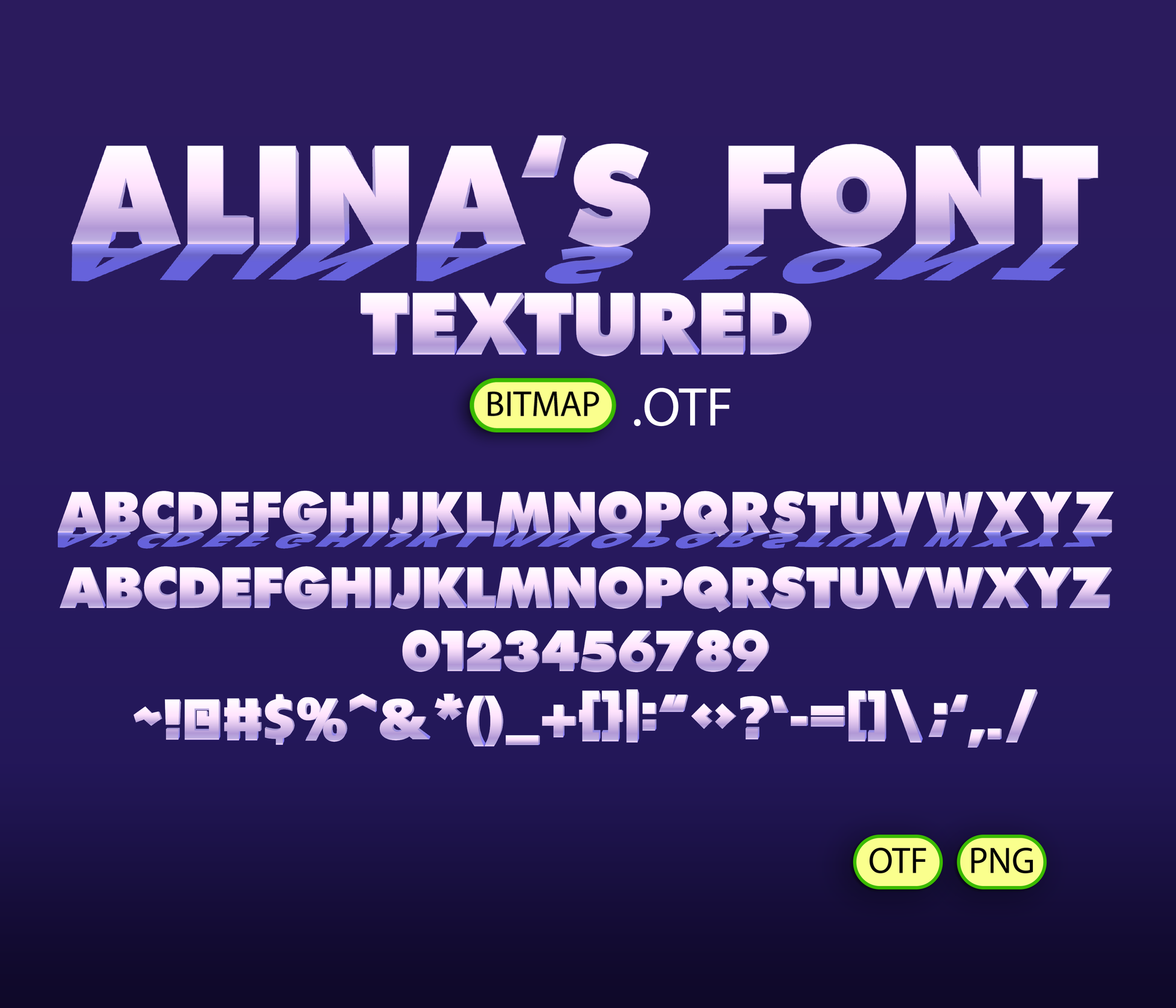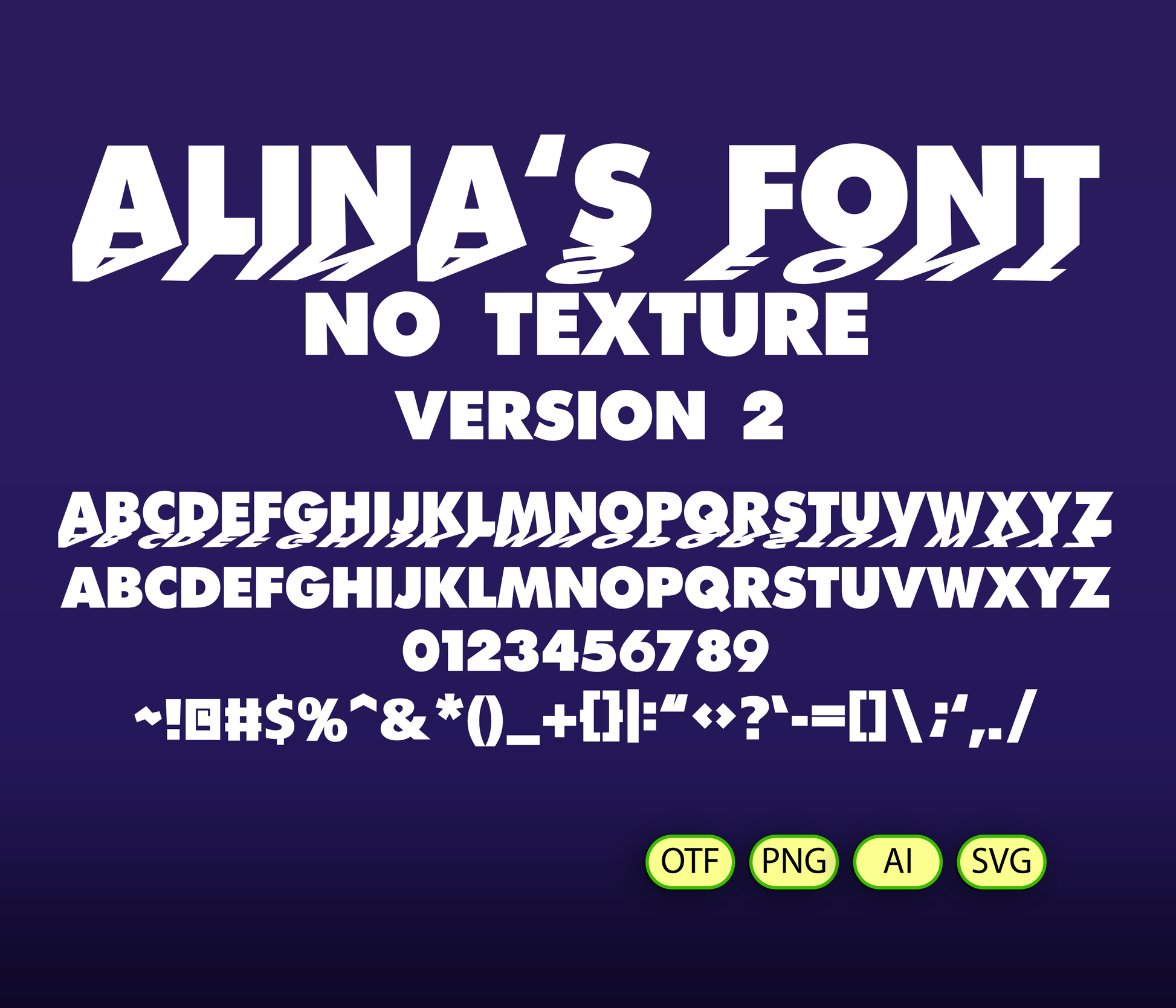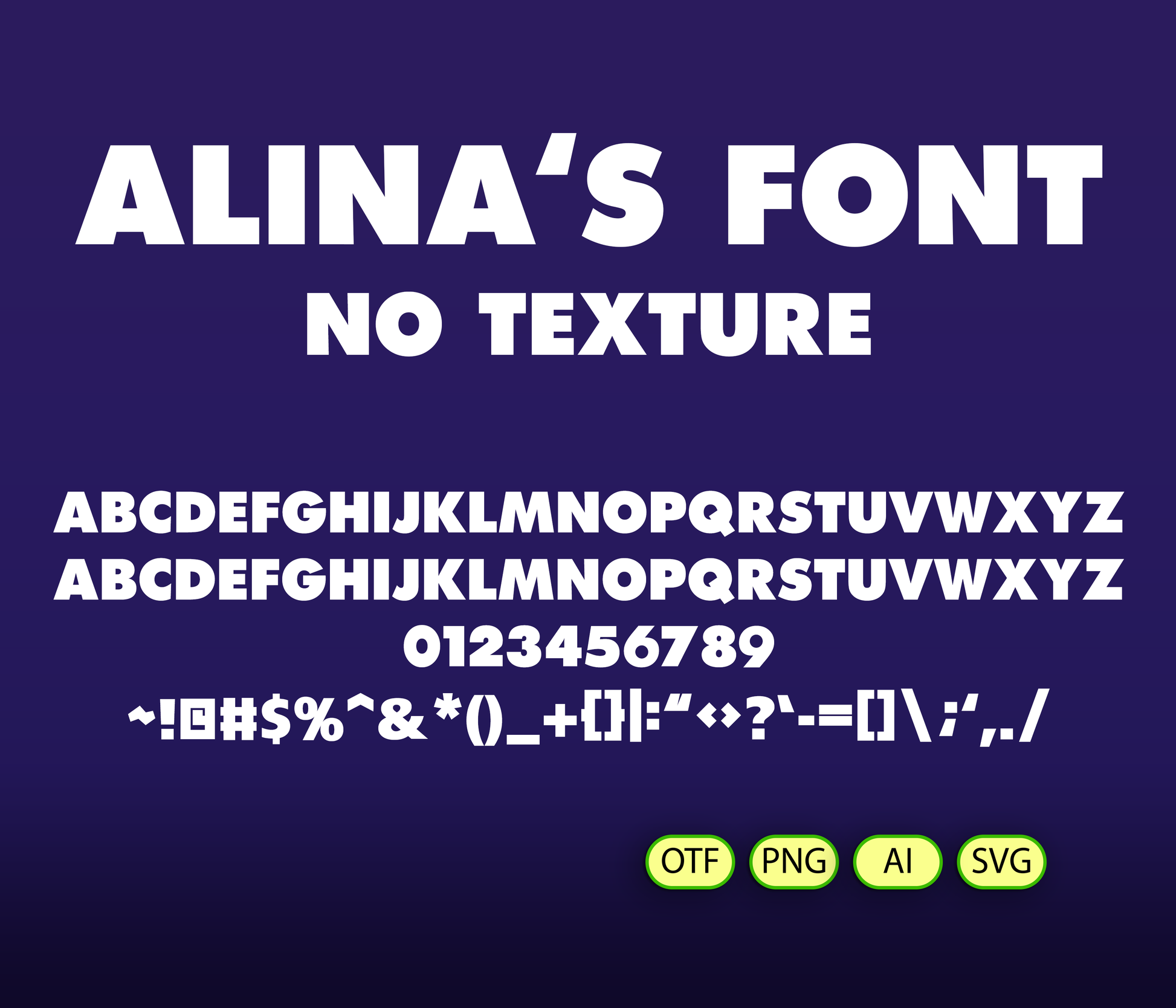
Imagination Font Textured
Imagination Font: Inspired by Speculative Storytelling
Dive into the realm of possibilities with our Imagination Font, a typographic homage to the whimsical and boundless landscapes of speculative storytelling. Designed for storytellers, dreamers, and creators, this font is perfect for projects that explore "What if?" scenarios, challenge reality, and celebrate the hypothetical. Whether crafting film posters, book covers, or digital content, the Imagination Font invites you to write, design, and dream beyond conventional limits.
What font is the IF Imagination Font?
This query unveils a typeface that encapsulates the essence of speculative storytelling, blending elements of fantasy, science fiction, and alternate realities. With its sleek lines and imaginative flair, the font mirrors the intrigue and curiosity that If movies evoke. It's crafted to engage the viewer's sense of wonder, with characters that convey a sense of adventure and mystery, making it perfect for titles, promotional materials, and content that aims to captivate and inspire. The extensive character set ensures versatility, enabling creators to express a wide range of speculative ideas and narratives.
Application and Customization
The If Movie font is remarkably versatile, making it suitable for a variety of creative and commercial projects:
- Film Posters and Titles: Ideal for capturing the speculative essence of movies that delve into what if scenarios.
- Book Covers: Perfect for novels or anthologies that explore alternate realities, speculative fiction, or philosophical questions.
- Event Invitations: Craft unique invites for film screenings, book launches, or discussions centered around speculative themes.
- Social Media Campaigns: Stand out with engaging content that teases the mind-bending concepts of your If movie or project.
- Educational Materials: Develop intriguing presentations or lesson plans that explore themes of creativity, possibility, and imagination.
Feature Highlights and Bonuses
The If Movie font package is designed to maximize creativity and accessibility:
- FREE No-Texture Version: Offers a clean, adaptable variant perfect for various design needs, ensuring compatibility with both digital and print media.
- Comprehensive Character Set: Equipped with an extensive selection of characters to support a variety of creative endeavors, from simple text-based designs to elaborate compositions requiring special symbols.
- User-Friendly Design: Accessible to designers of all skill levels, this font enables both amateurs and professionals to bring their speculative and imaginative projects to life with ease.
The Imagination Font is more than just a collection of letters; it's an invitation to explore the uncharted territories of imagination and possibility. Whether for personal projects, fan communities, or commercial endeavors, this font adds depth and intrigue, making every creation a testament to the power of speculative storytelling. Embrace What IF? and let your designs capture the limitless potential of imagination.